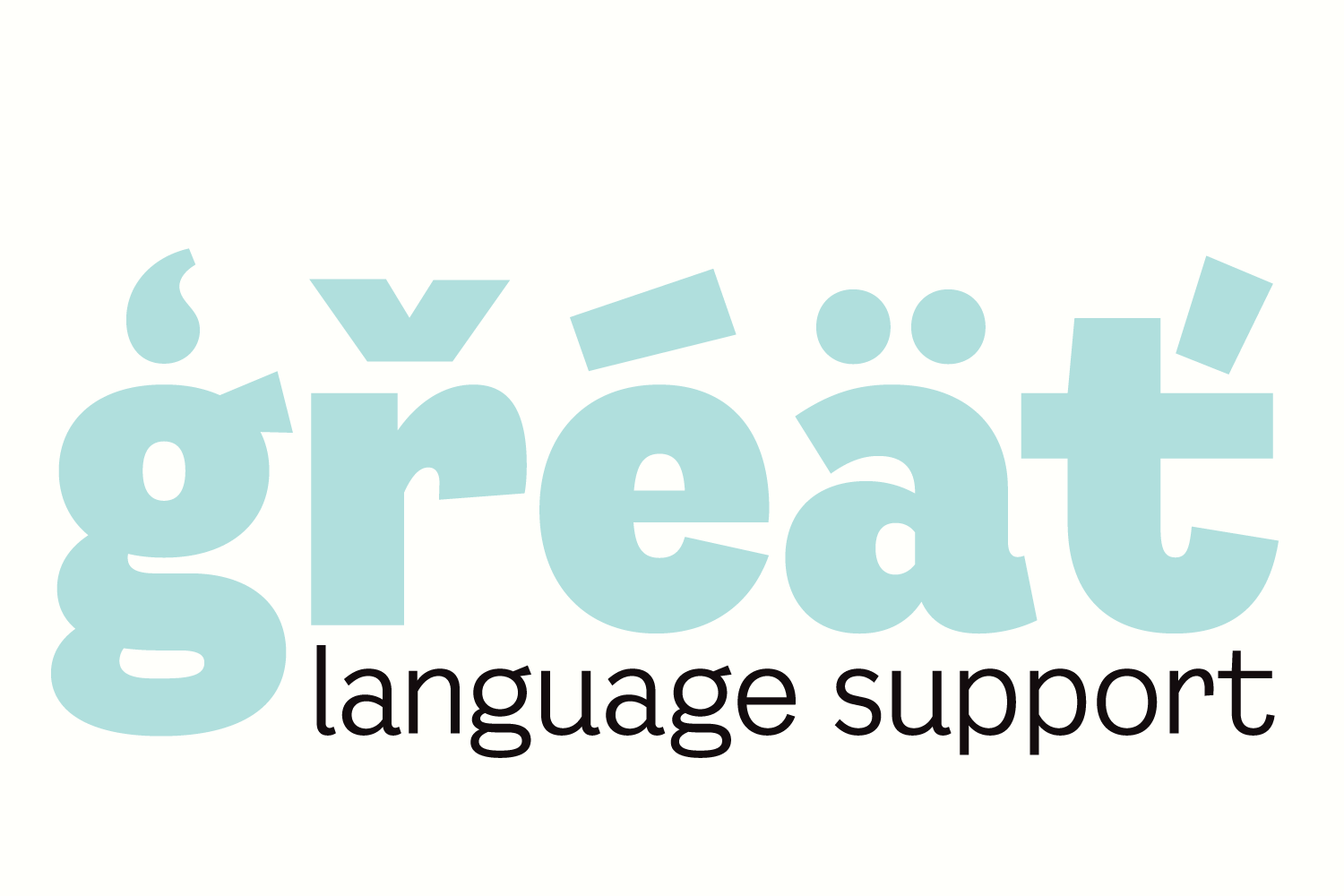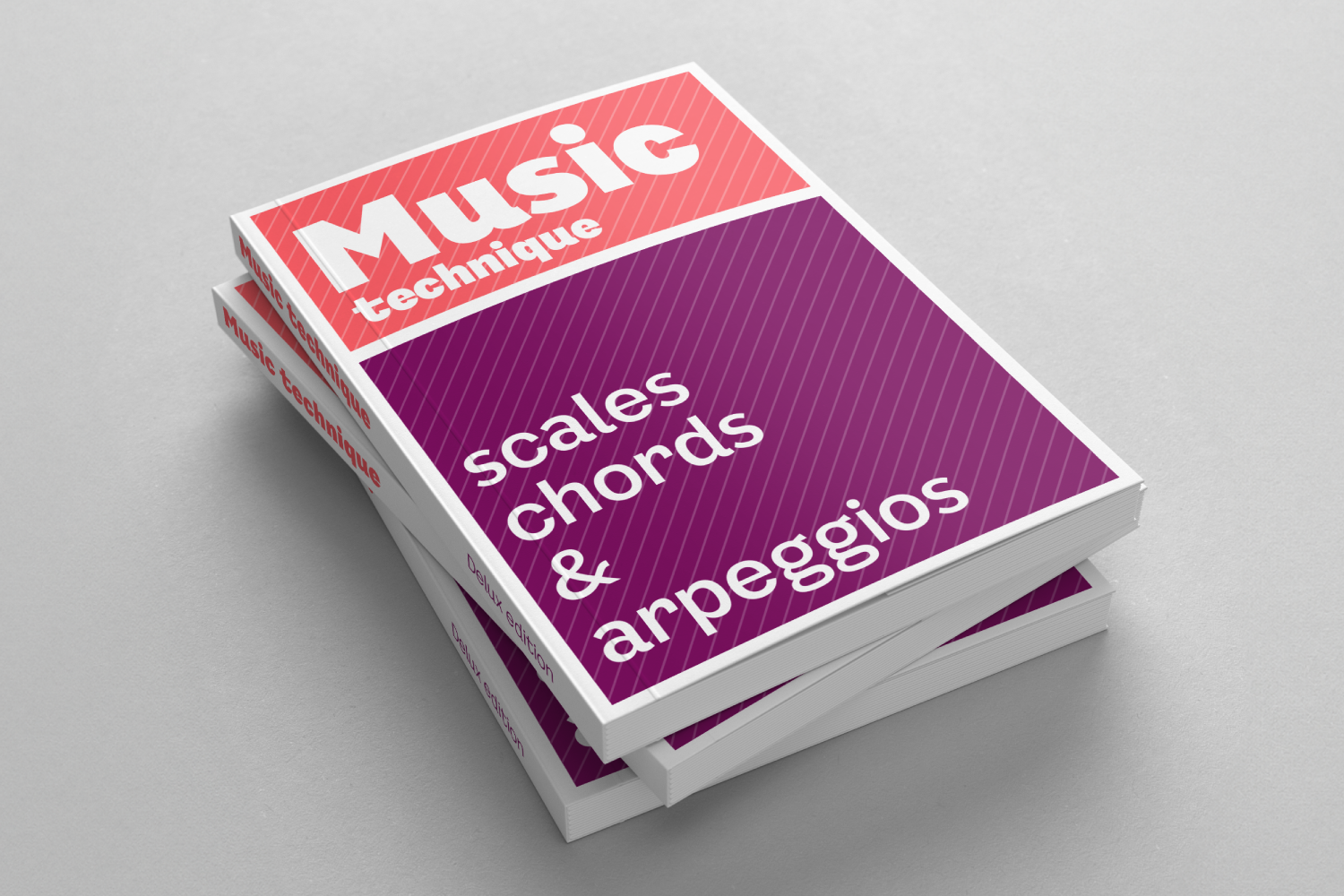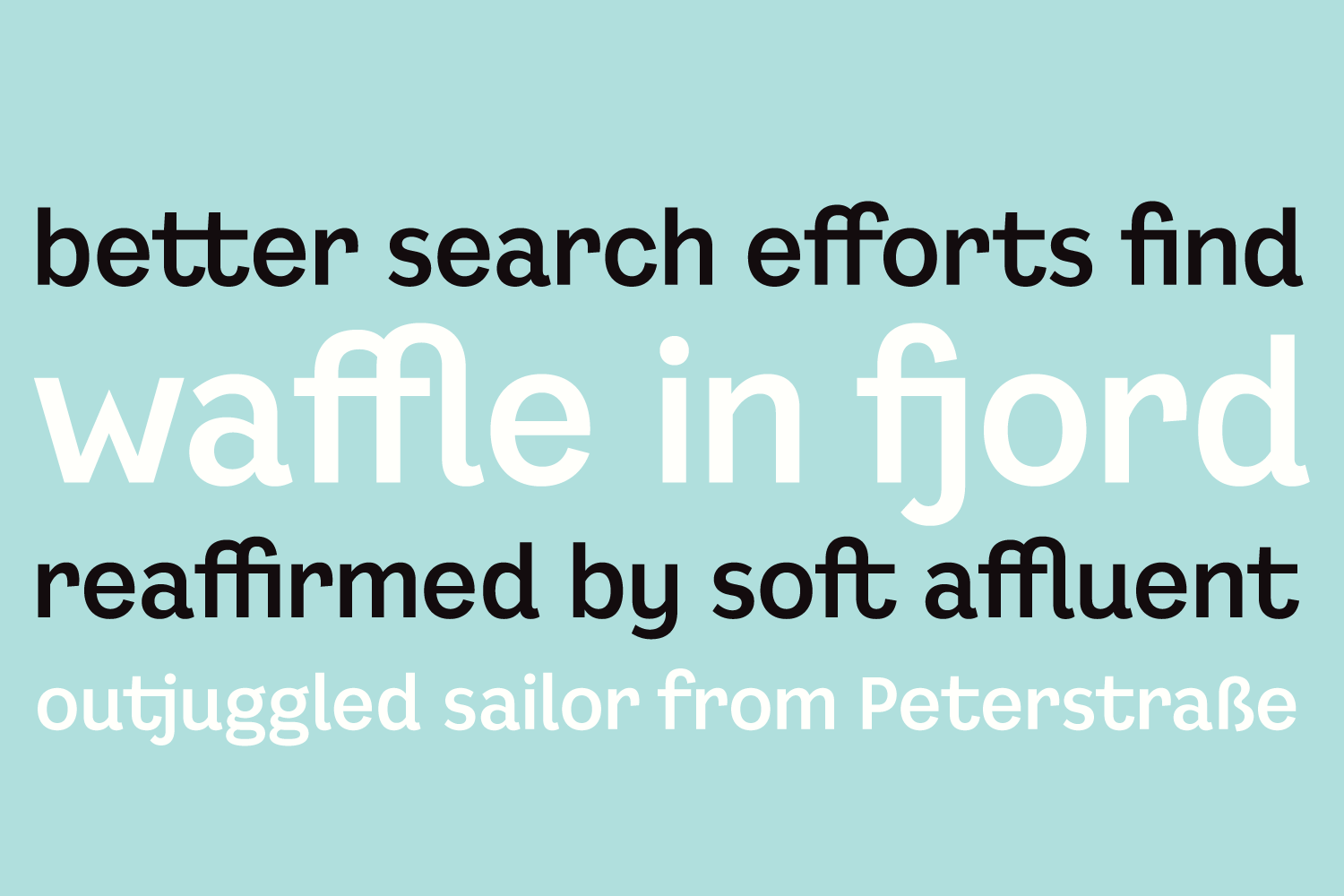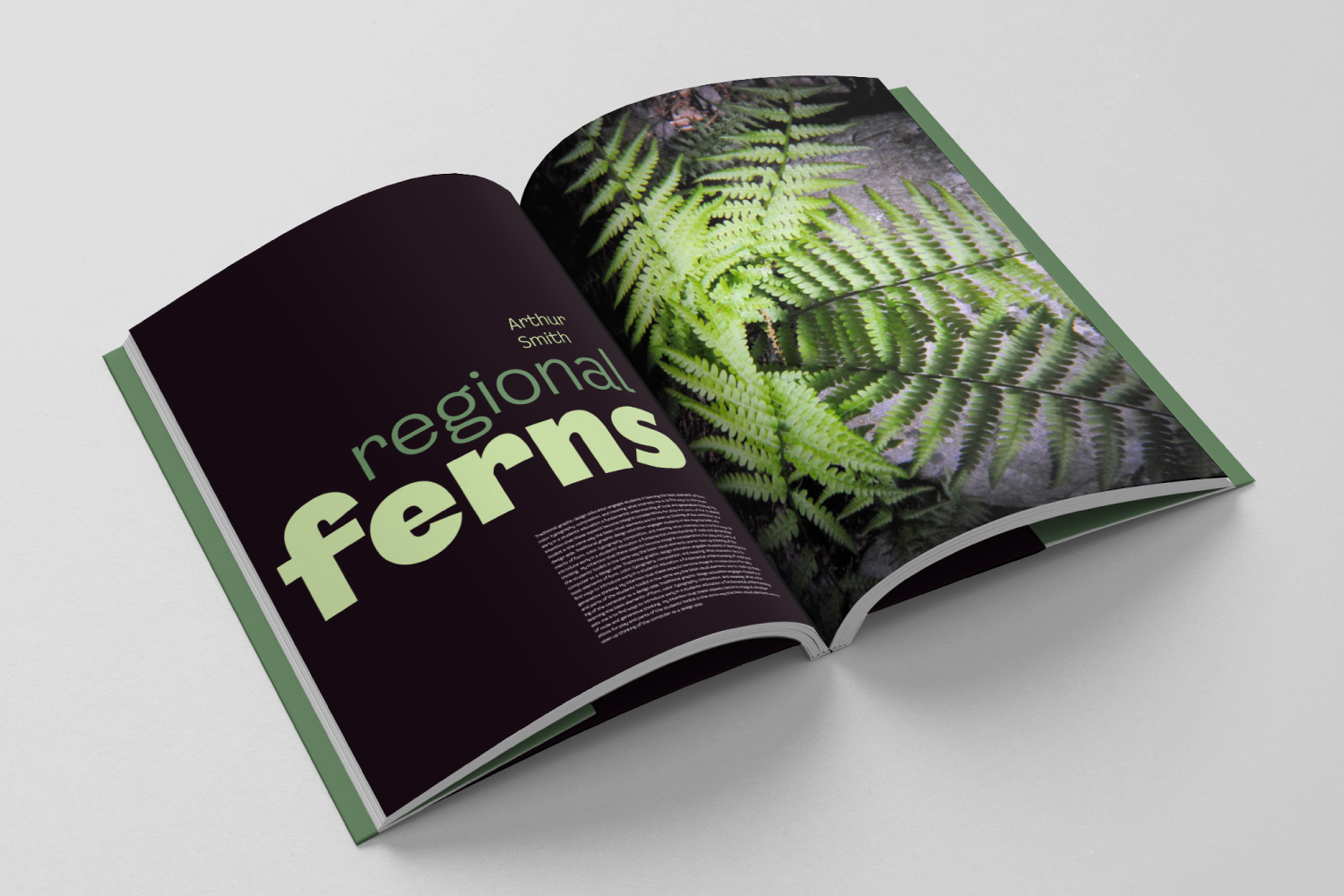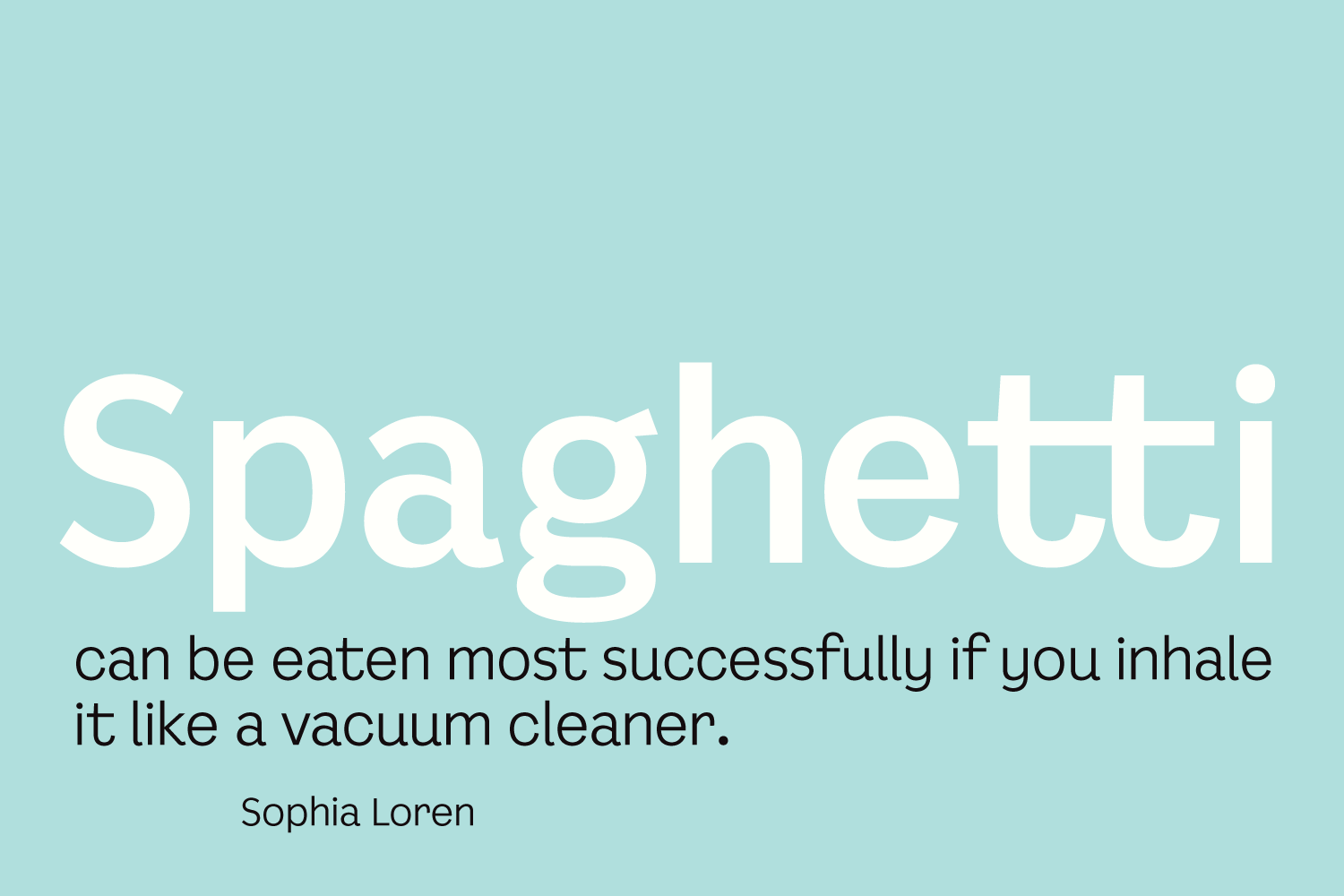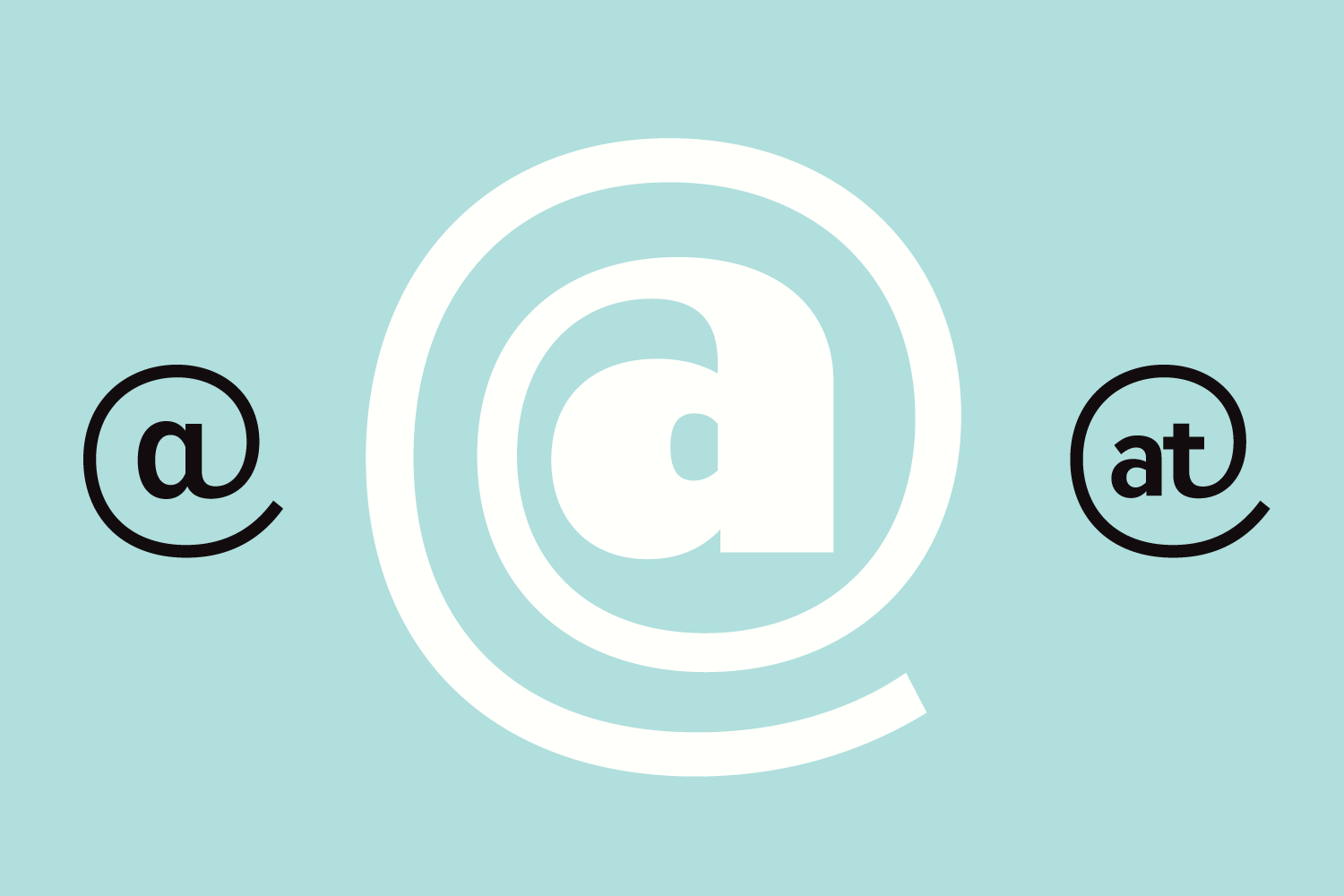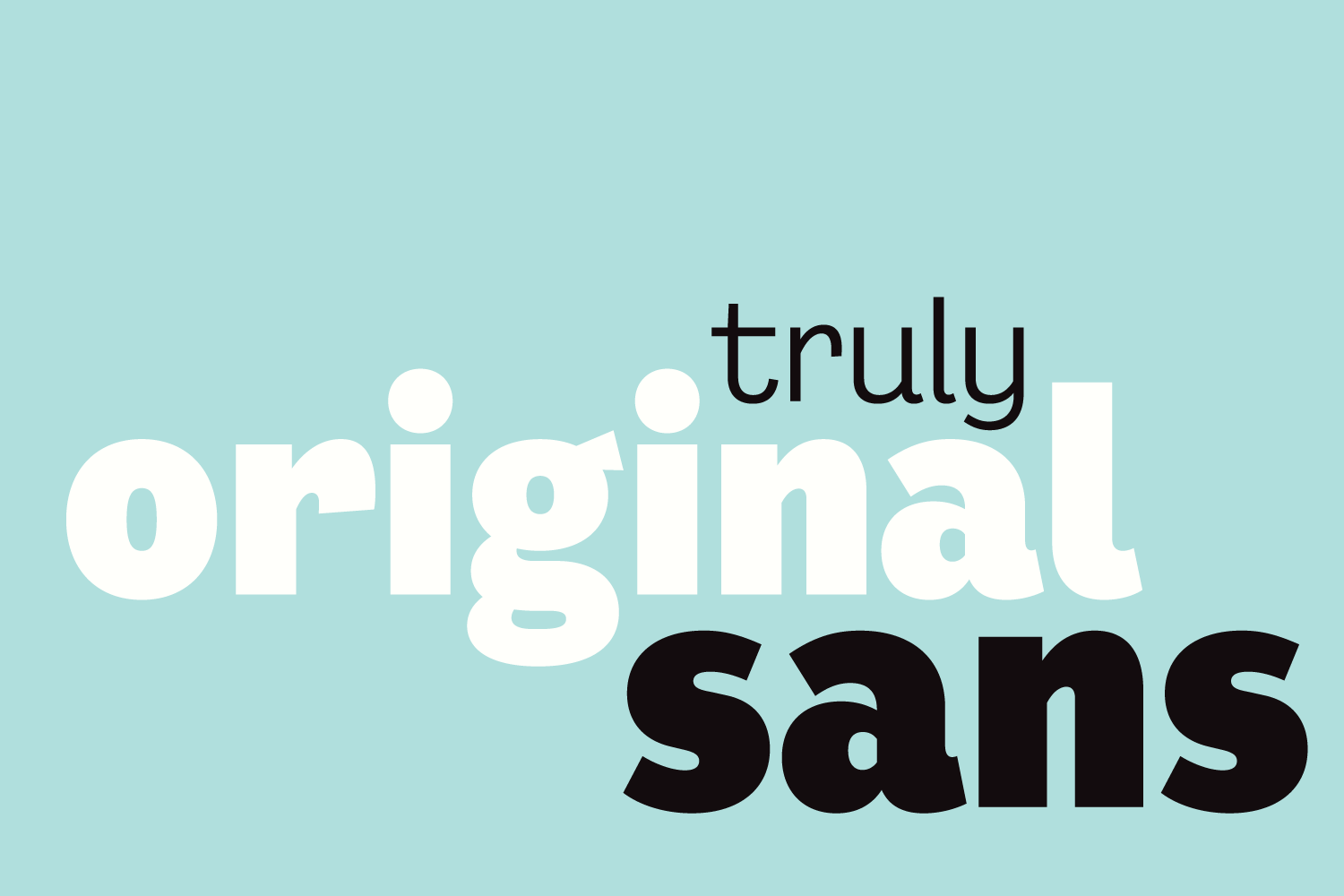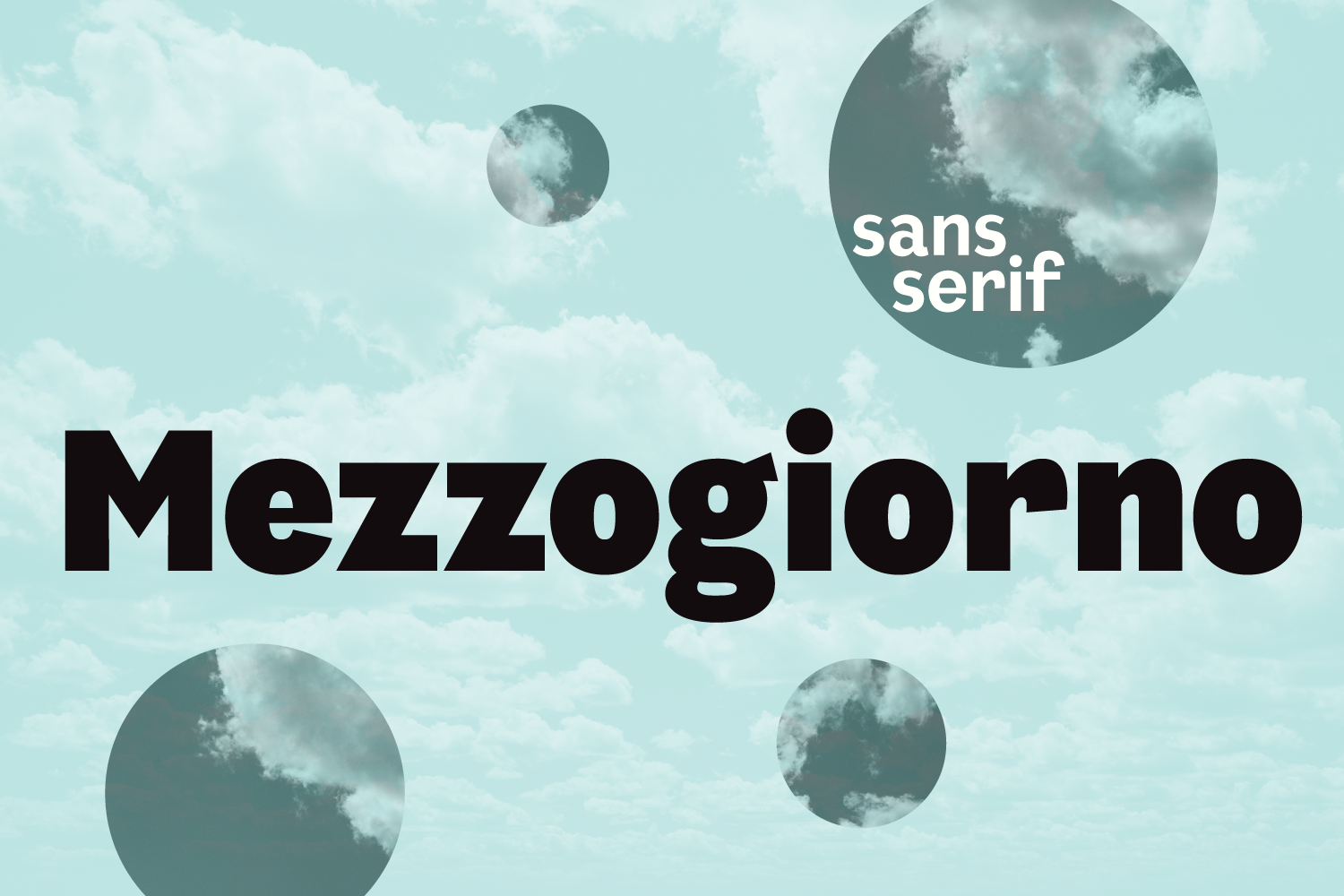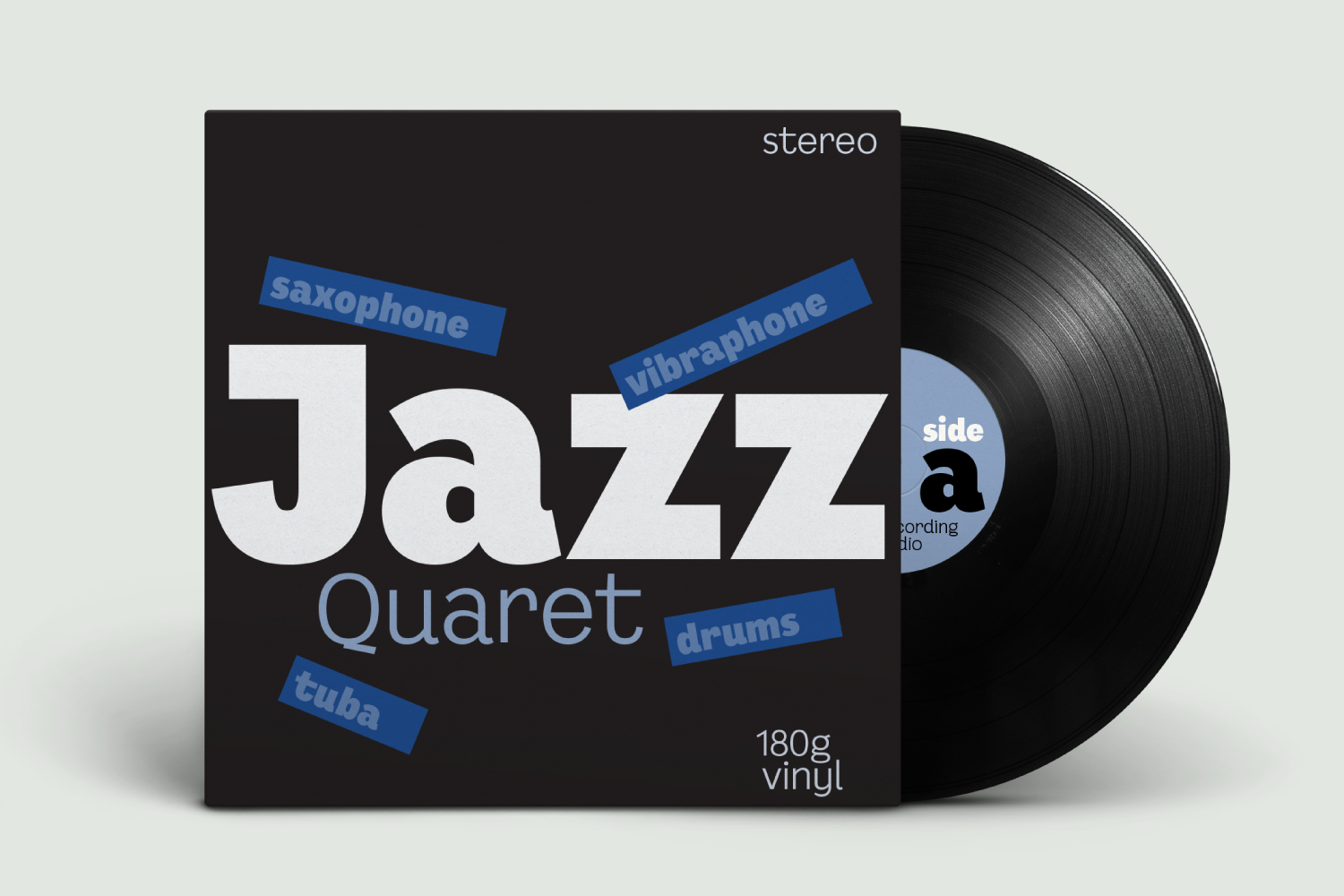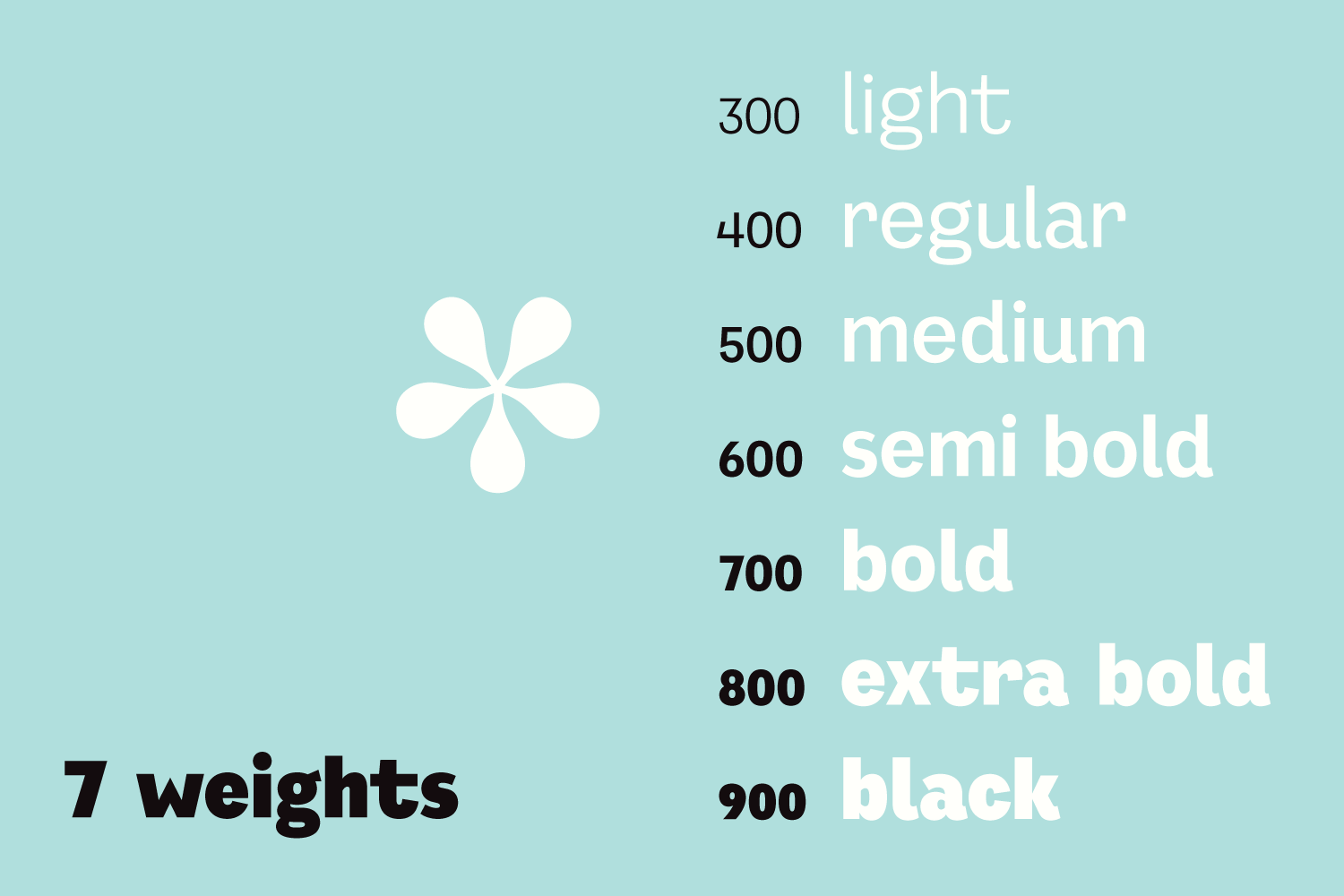
Mezzogiorno Family (14 fonts)
From Tarallo Design
The easy-going nature of Mezzogiorno adds just the right amount of warmth without overpowering text. It is suitable for any graphic design need. Sectors like the arts, education, food, and travel will find this typeface adds a human tone.
Mezzogiorno unites qualities of humanist sans serifs and expressive display fonts. The black and extra bold weights are rich in playful curves. The lighter weights delight with gentle movements, asking the reader to slow down and savor each word. Some distinctive letterform aspects include a reverse contrast S, seriffed endings on a few letters, angled terminal strokes, high contrast parentheses and brackets, and a double-story lowercase g. It comes in 7 weights from light to black and with matching obliques. OpenType features include standard and discretionary ligatures (fj, ft, tt, TT, TJ and FL), alternate glyphs for j J, two ampersands, three at signs, arrows, and a Bitcoin symbol.
The drawings of this typeface were made while listening to the jazz music of Vince Guaraldi. In Italian, Mezzogiorno means midday, noon, & Southern Italy.